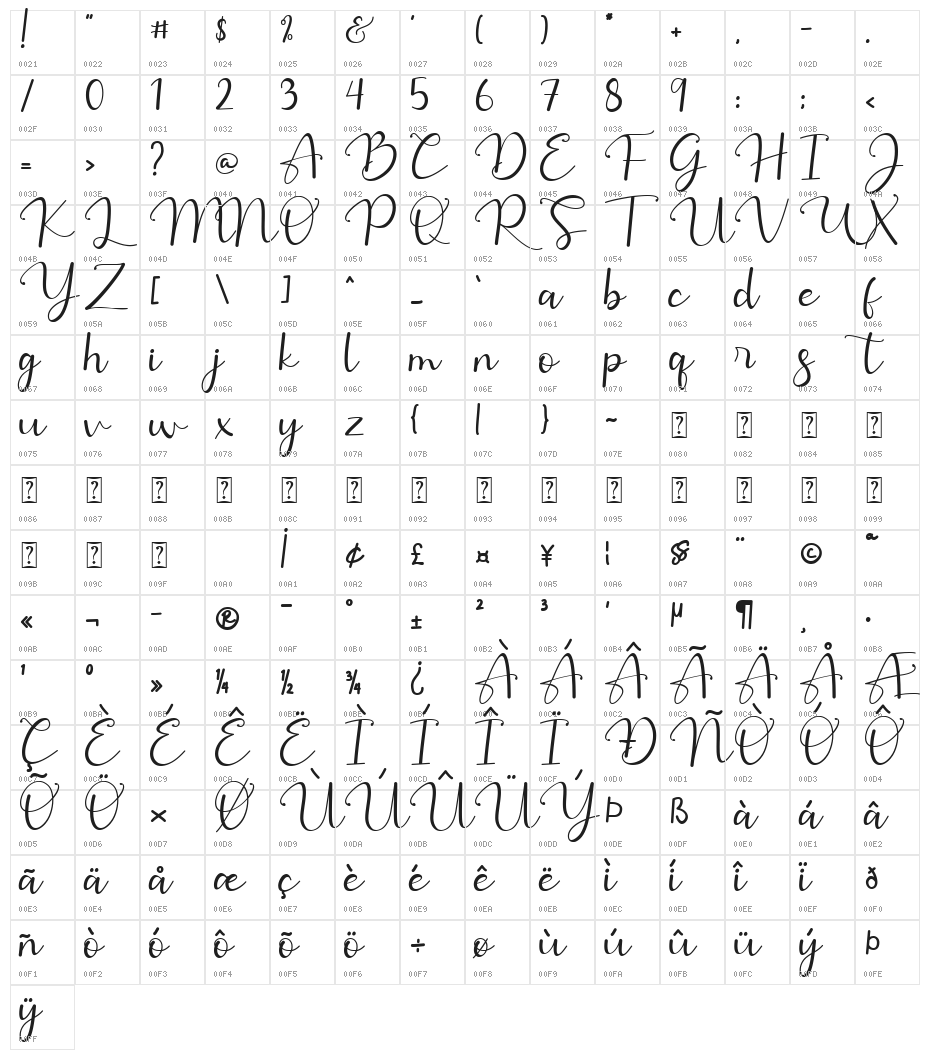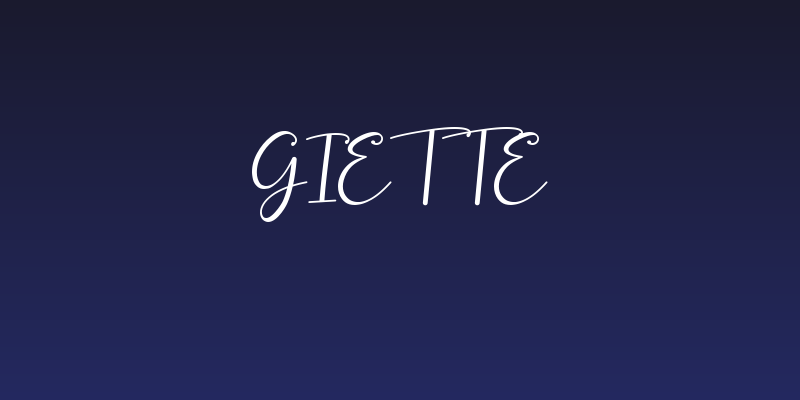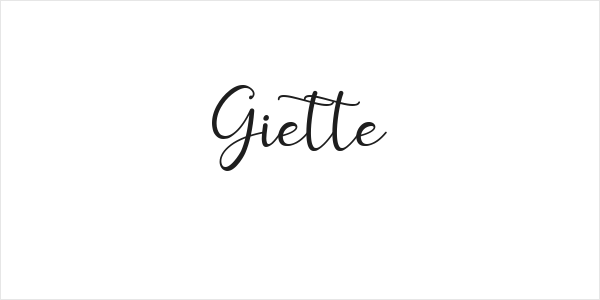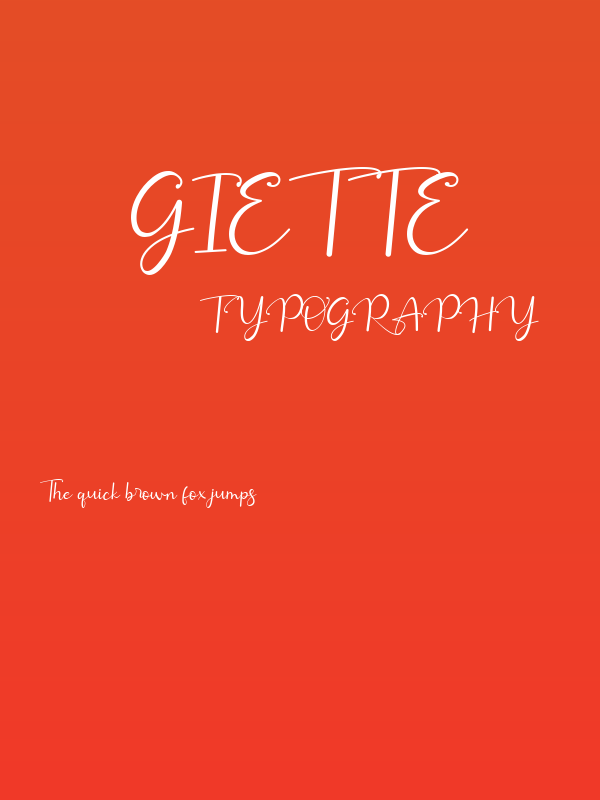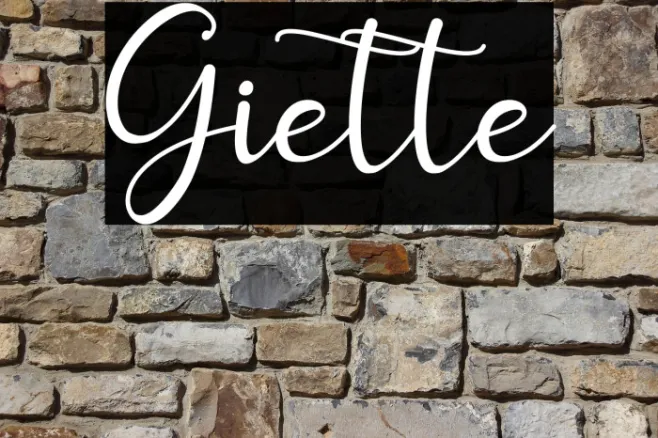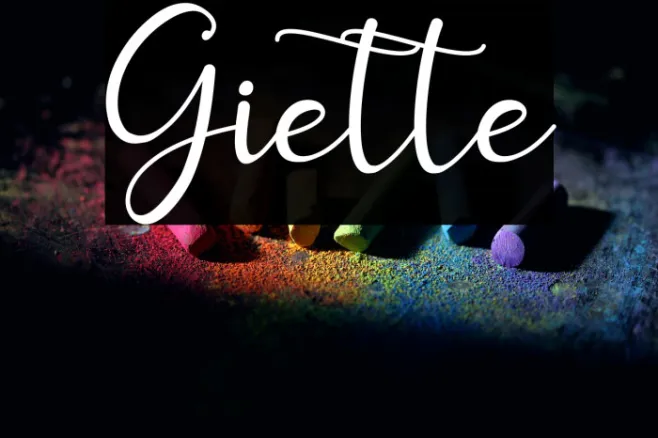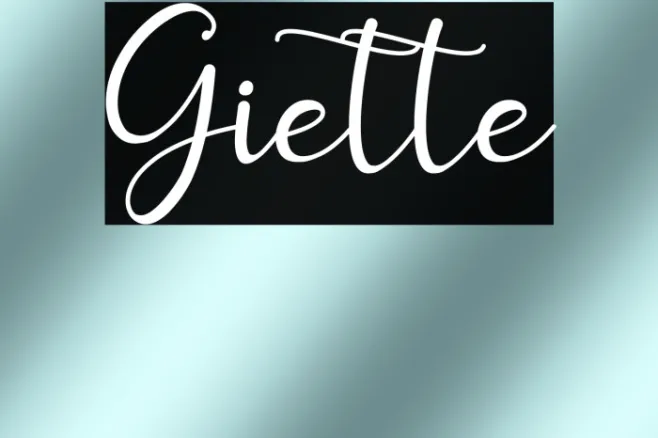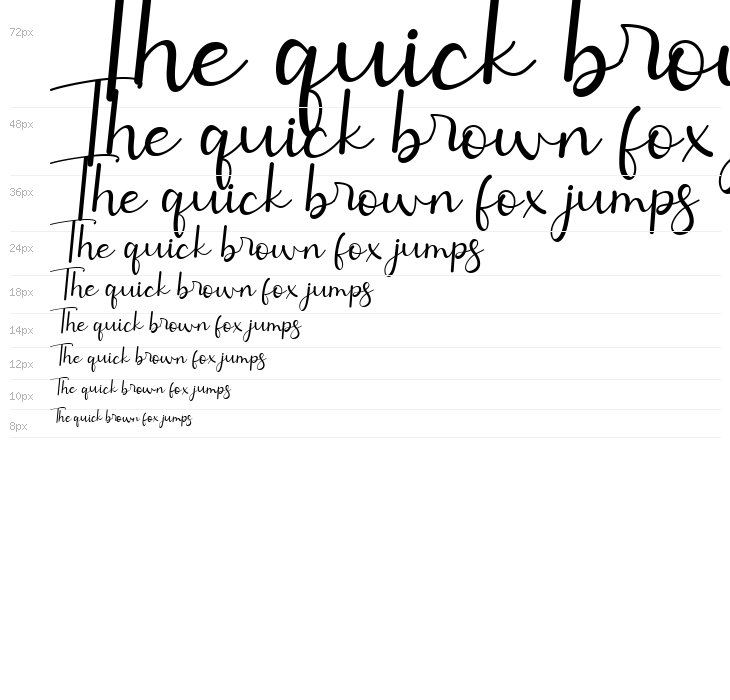
Giette Font
Giette Description
This font features an elegant and flowing script style with a handwritten appearance. The uppercase letters are characterized by their graceful loops and swirls, giving them a sophisticated and artistic flair. The lowercase letters maintain a consistent flow, with smooth curves and a slightly playful touch. Numbers and special characters are designed to complement the overall aesthetic, ensuring a cohesive look across all text elements. The font's delicate strokes and balanced proportions make it suitable for projects that require a personal and stylish touch.
| Overall Style | Elegant, Artistic |
| Proposed Projects | Ideal for wedding invitations, greeting cards, personal branding, and elegant packaging designs. |